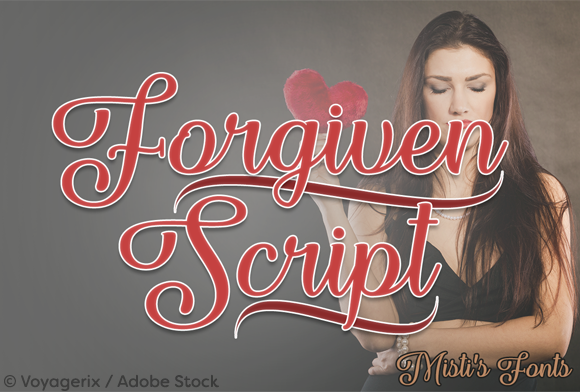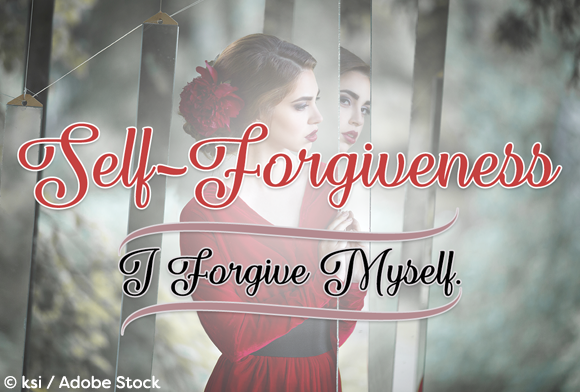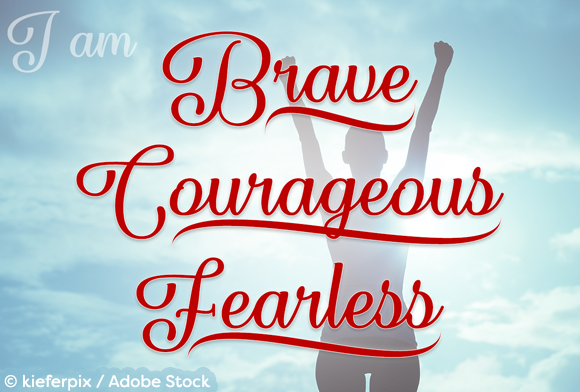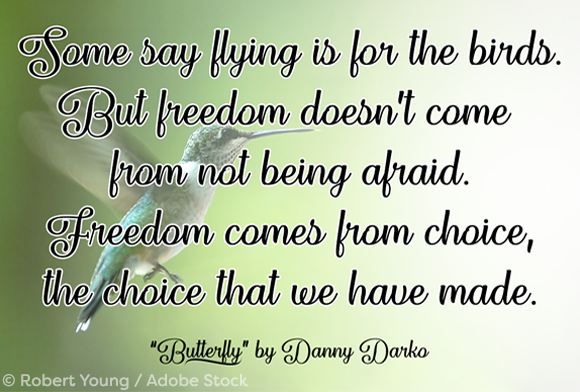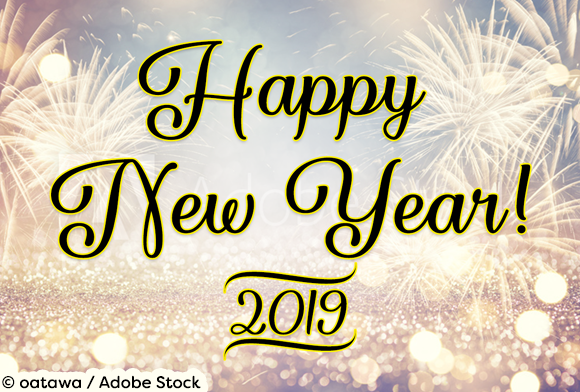
Forgiven Script Font
About Forgiven Script Font
The Forgiven is an elegant calligraphy typeface that is perfect for wedding invites, logos, menus, book covers, and so much more!
It includes beautiful underline swashes which you can use to make the perfect design!